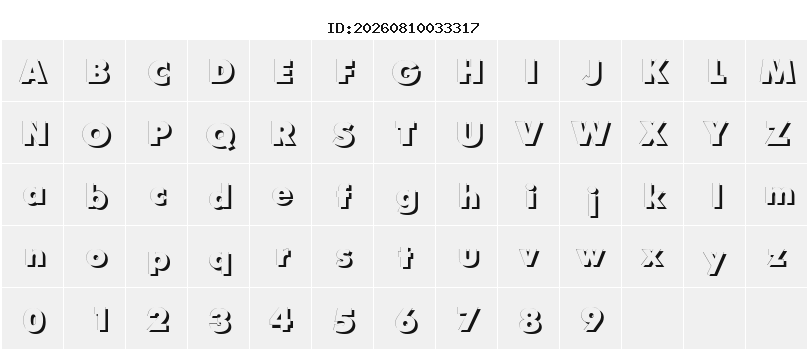
• Font Name: FuturaFuturisXShadowC
• Full Font Name: PT FuturaFuturis Black Shadow Cyrillic
About FuturaFuturisXShadowC.ttf
FuturaFuturisXShadowC.ttf is a modern, elegant sans-serif font designed for ultimate readability and visual harmony. Perfect for branding, headlines, web design, and print materials.